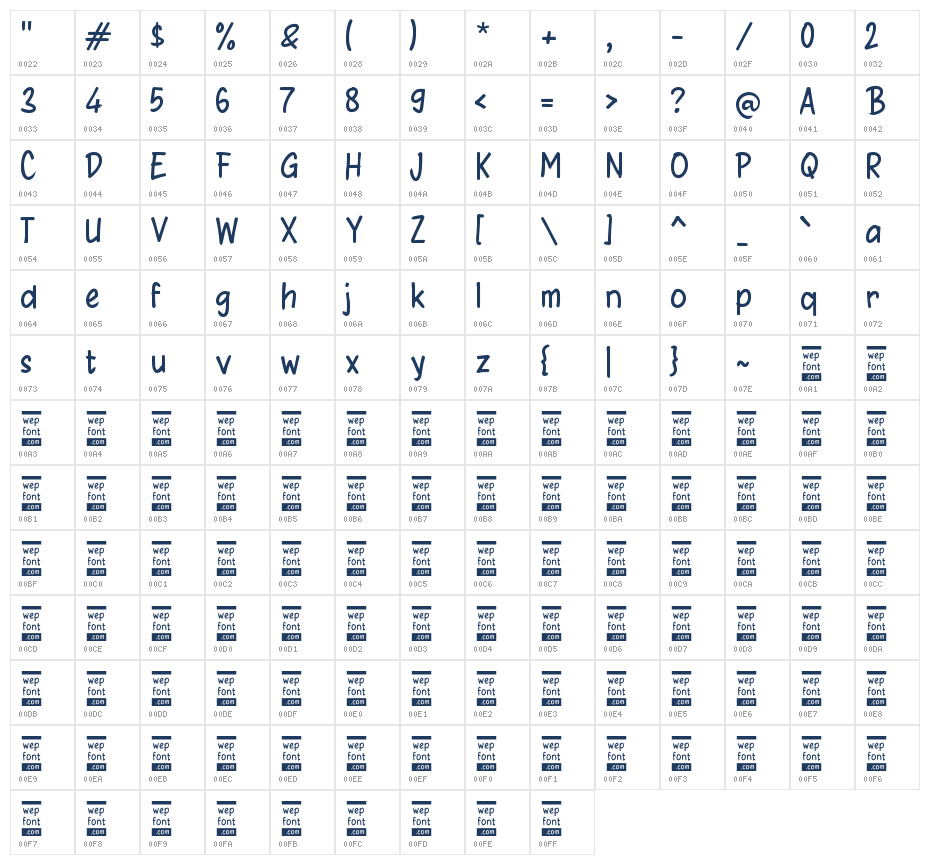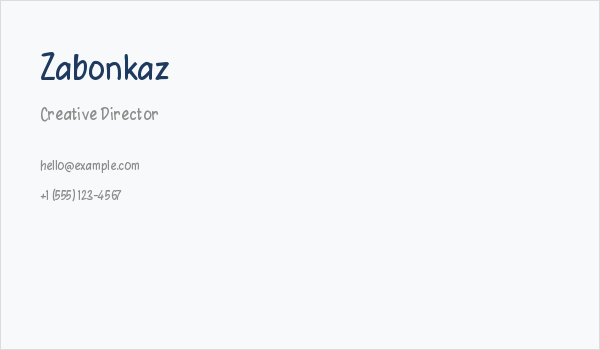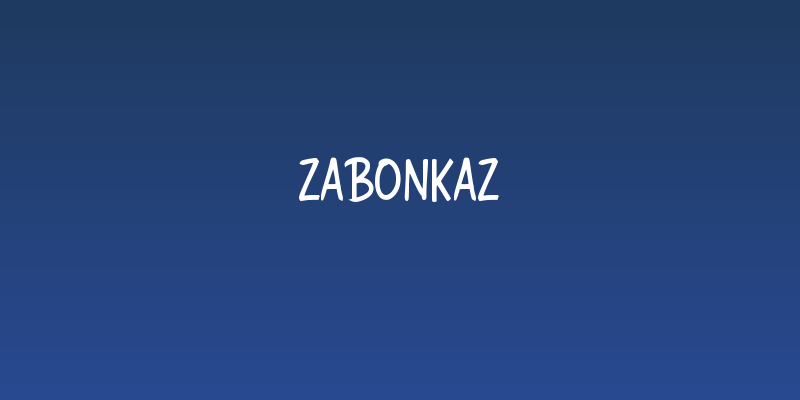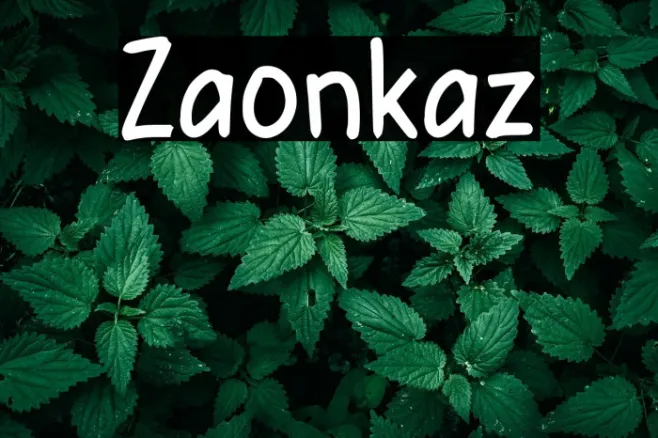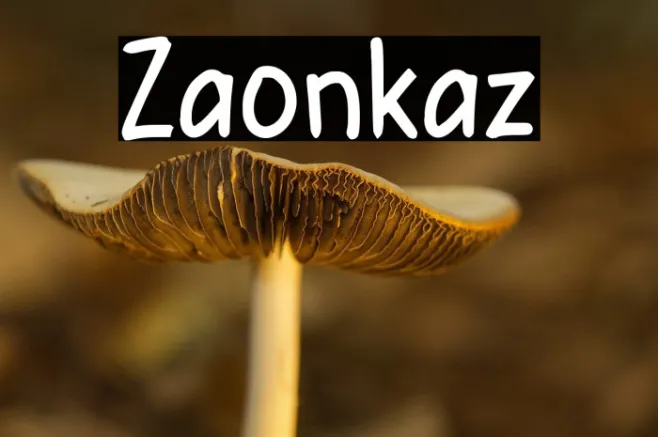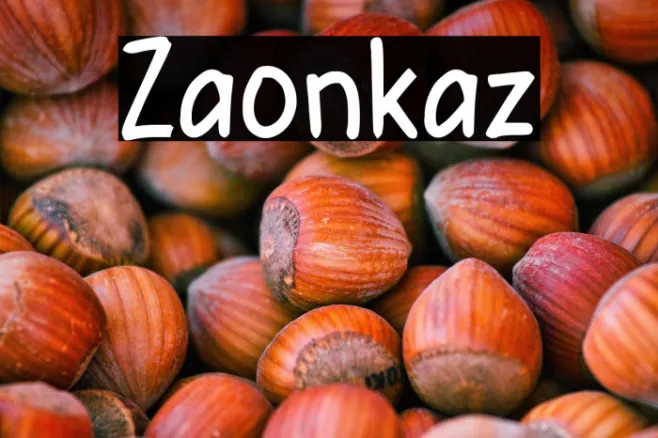
Zabonkaz Font
Zabonkaz Description
A playful, handwritten style font with rounded, casual letterforms and a slightly irregular stroke weight, giving it an informal and friendly appearance.
ZABONKAZ UPPERCASE
ZABONKAZ LOWERCASE
ZABONKAZ OTHER CHARS
| Overall Style | Casual, Friendly, Playful |